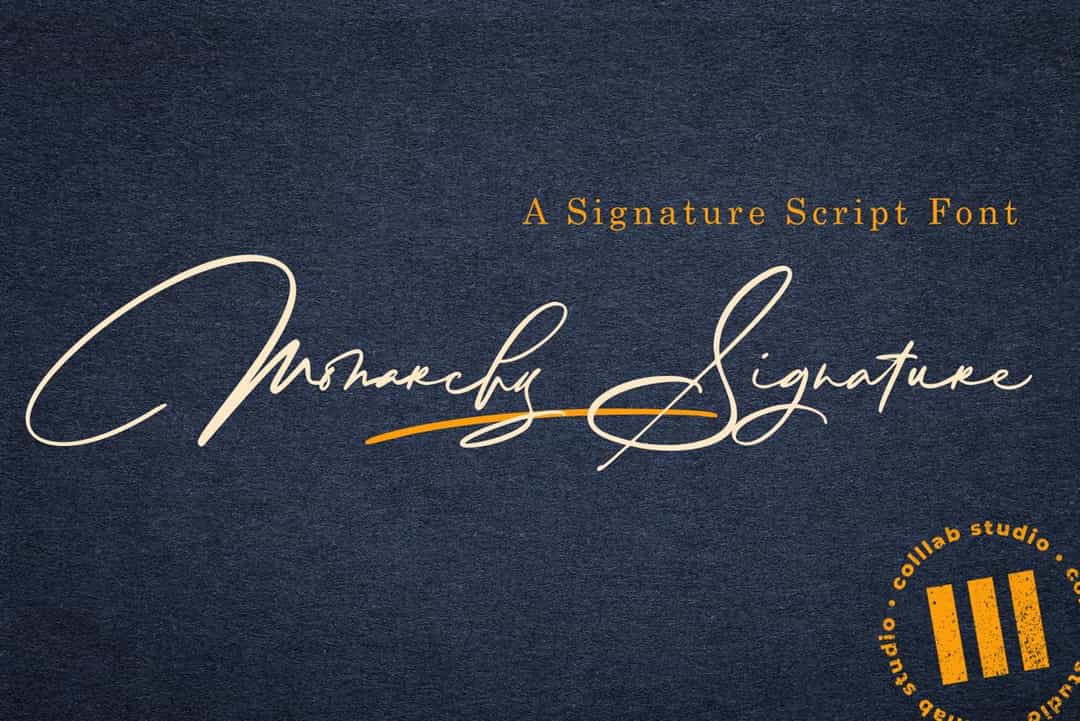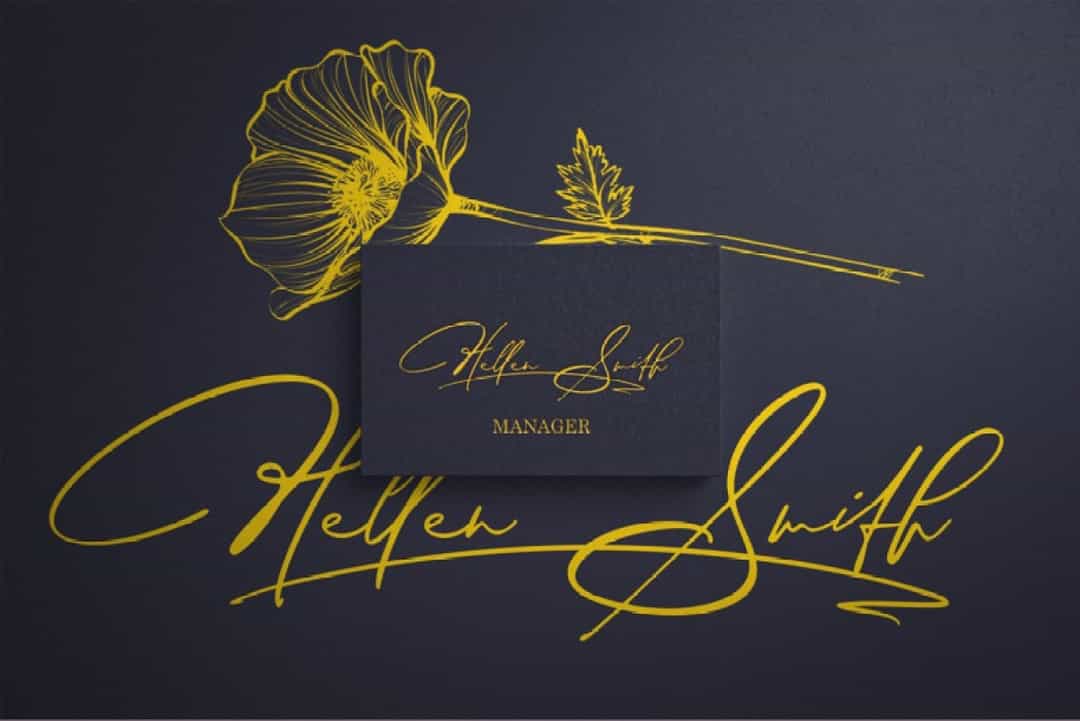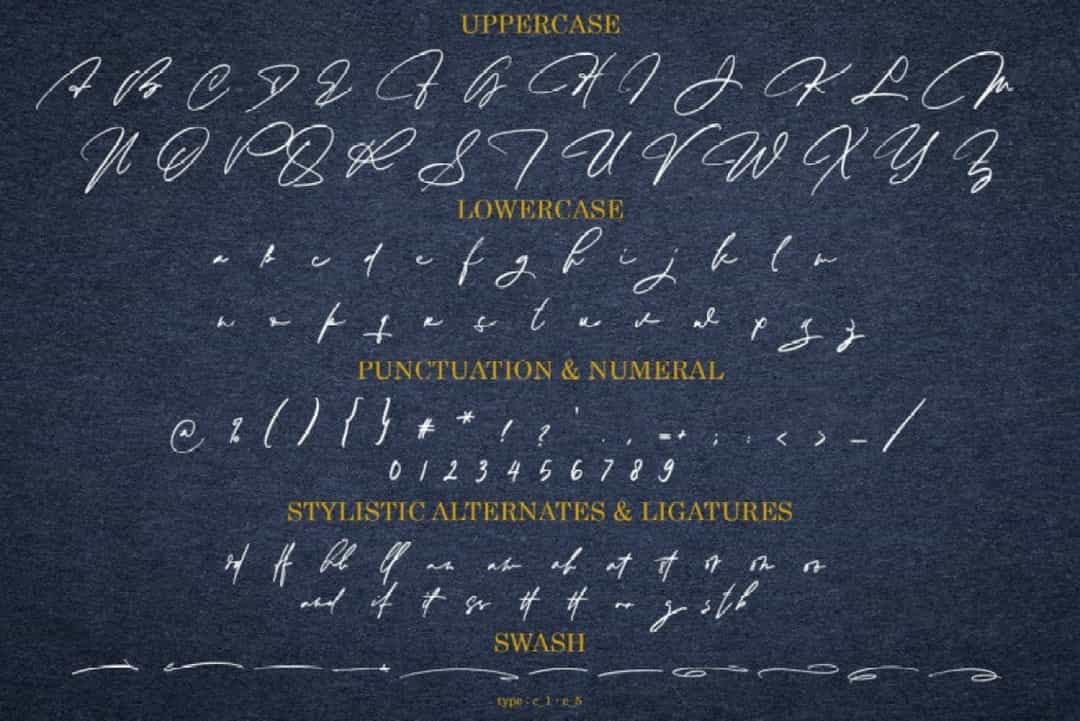
Monarchy Signature Font is an elegant script typeface perfect for wedding invites, thank-you cards, quotes greeting cards logos business cards or any design needing a handwritten touch. Monarchy Signature features Multilingual Support as well as alternative words ligatures and swashes for added style and versatility.